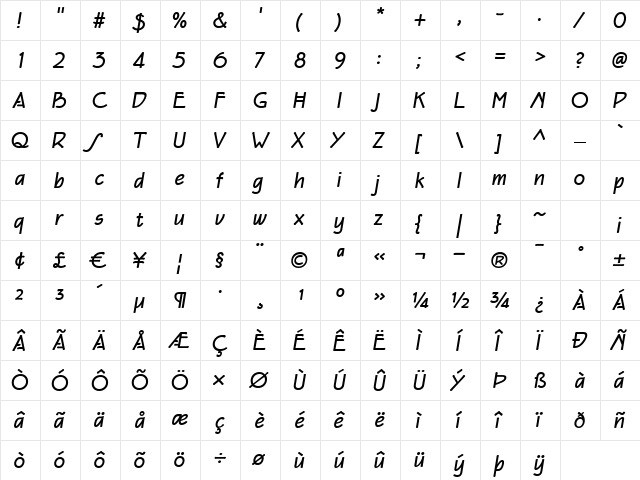
P22 Eaglefeather BoldItalic
Design Context for P22 Eaglefeather Typeface
P22 Eaglefeather is a composed and adaptable typeface that performs quietly and consistently across a wide range of design contexts. The slanted form adds forward momentum and visual energy. Its bold stroke weight gives it real presence on the page.
Pro Tip: Try P22 Eaglefeather for annotation and caption copy alongside an upright companion — the contrast in angle creates a dynamic but ordered typographic system.